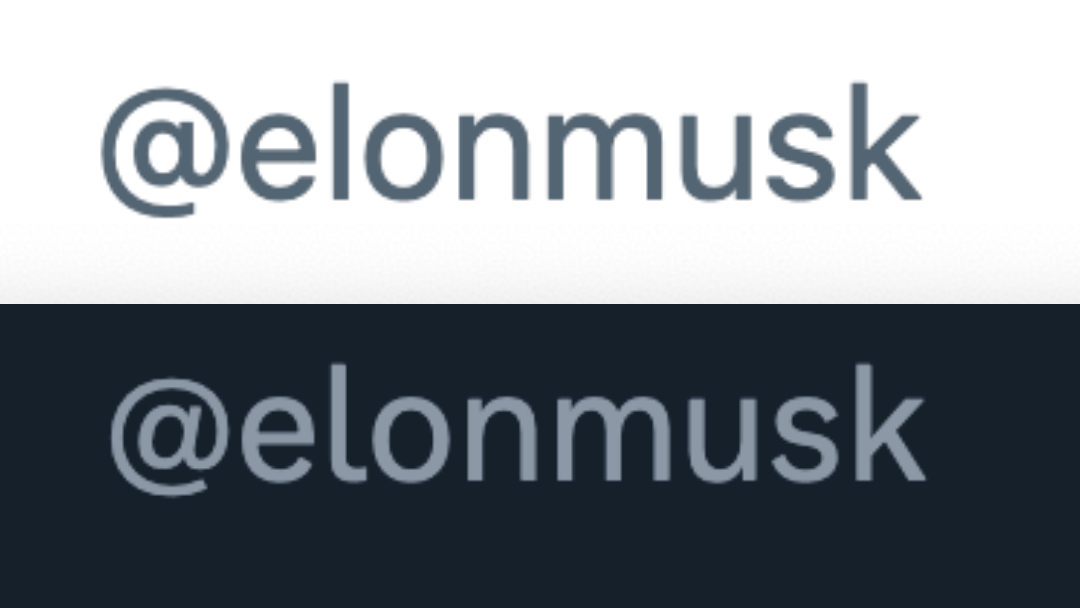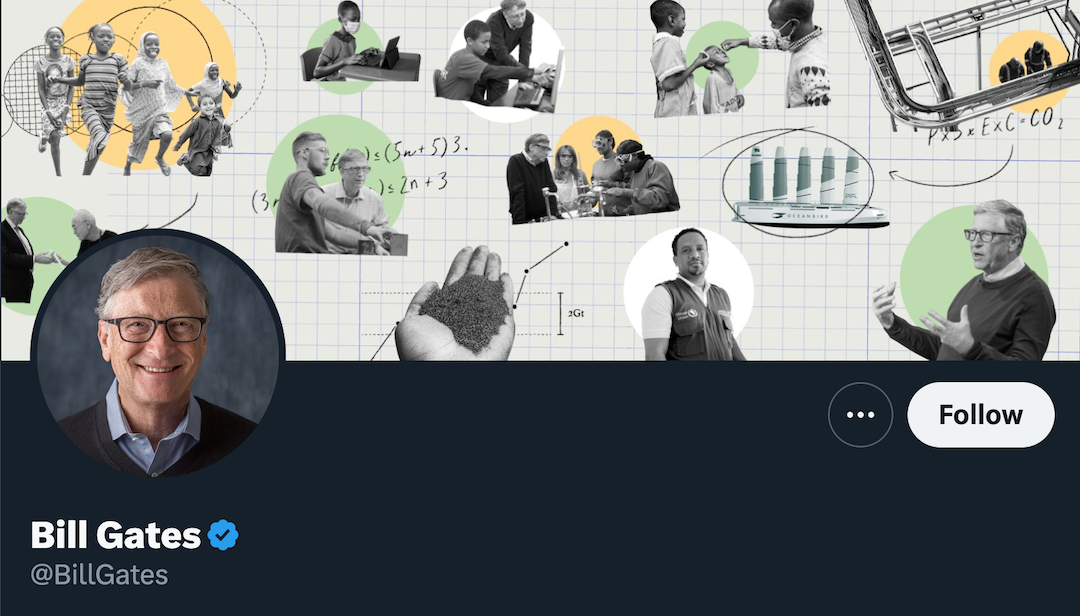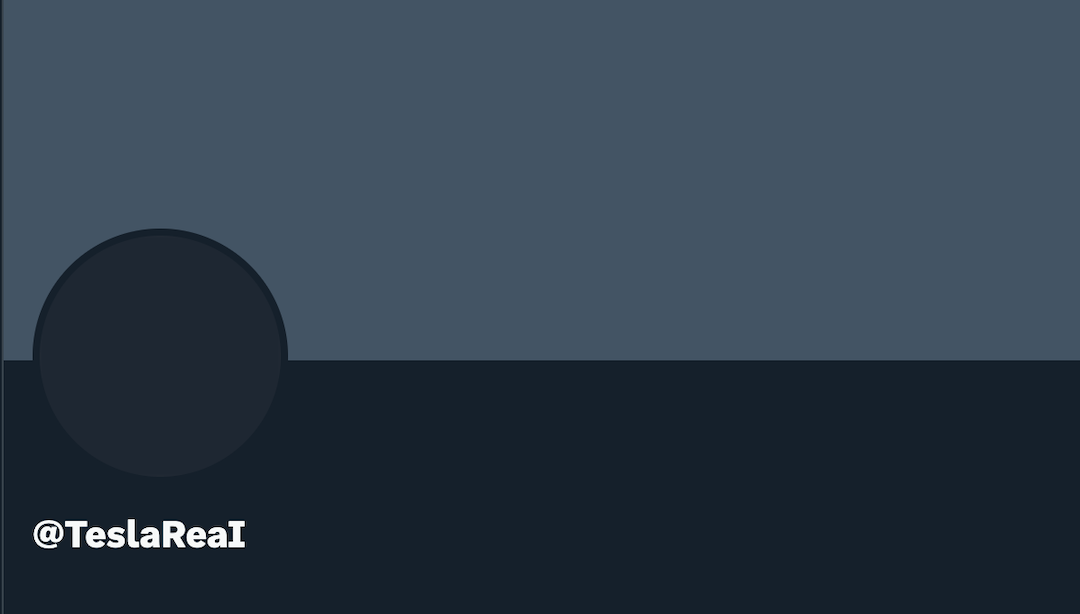
Twitter’s New Way To Hopefully Suss Out Impersonators? A Font Change
As Twitter 2.0 works out some growing pains, the blue bird app has been a stomping ground for some prowling copycats, who have interpreted Elon Musk’s “free-speech” stance as a green light to impersonate famous personalities and brands, including the new Twitter boss himself.
To distinguish real accounts from fakers, the company introduced color-coded verification checkmarks and square-shaped profile pictures, breaking the social network’s uniform design of circles and blue ticks. Perhaps noting complaints about the site’s UI getting too cluttered, Twitter has now made a barely noticeable typography tweak.
Eagle-eyed users like software engineer Molly White have pointed out that the zero in Twitter handles now has a strike, while the lowercase ‘L’ has been given a tail.
looks like twitter is making some attempts to cut down on impersonation accounts by using a new font for twitter handles. note the slashed 0 and the tail on the l. pic.twitter.com/NZRQxjS3XJ
It’s been speculated that Twitter adopted this slight change to catch copycat accounts in their Iies, a theory supported by the fact that the new font is only visible on handles and not within tweets. Oftentimes, impersonators attempt to pass off as others by masquerading zeroes as an ‘O’ and a capital ‘I’ as a lowercase ‘L’ in their usernames.
The TeslaReal is my favorite so far. pic.twitter.com/X1XXsdZKZT
Joshua Benton, founder of Harvard’s Nieman Journalism Lab, chimes in that Twitter is still using its bespoke typeface, ‘Chirp’, but it has now incorporated OpenType stylistic sets to dot its i’s.
The new implementation of the Twitter font (TwitterChirp) uses OpenType stylistic sets (font-feature-settings) to differentiate a few characters — capital I, lowercase L, zero — but only in account names pic.twitter.com/2tlcsgXryK
For now, the subtle update seems to affect just the desktop version of Twitter, though it could only be a matter of time before the iOS and Android apps follow suit.